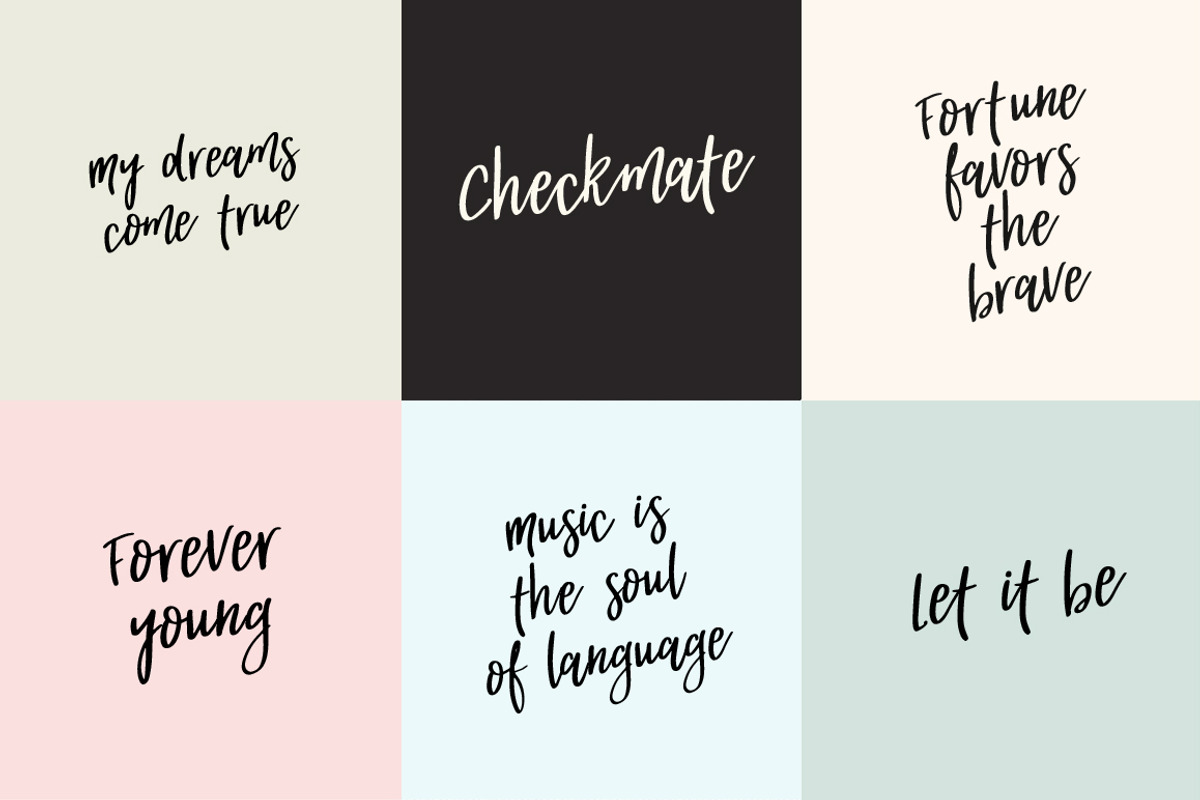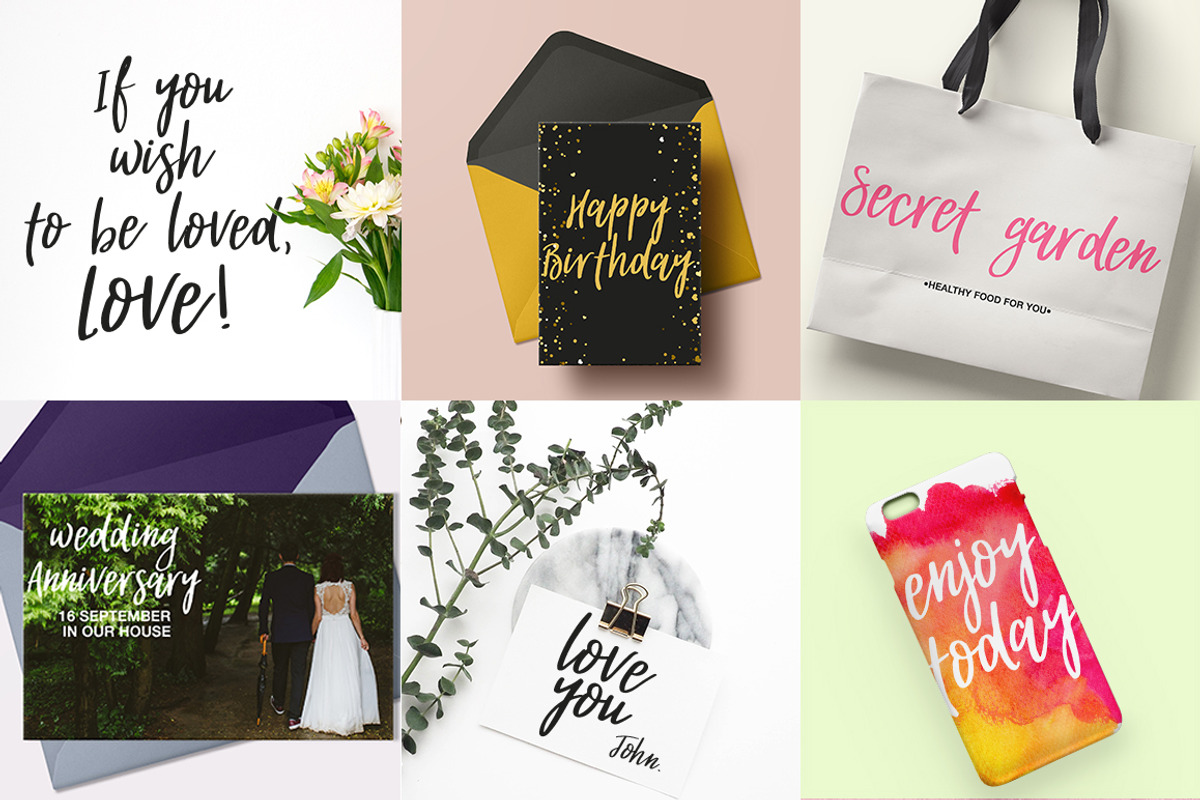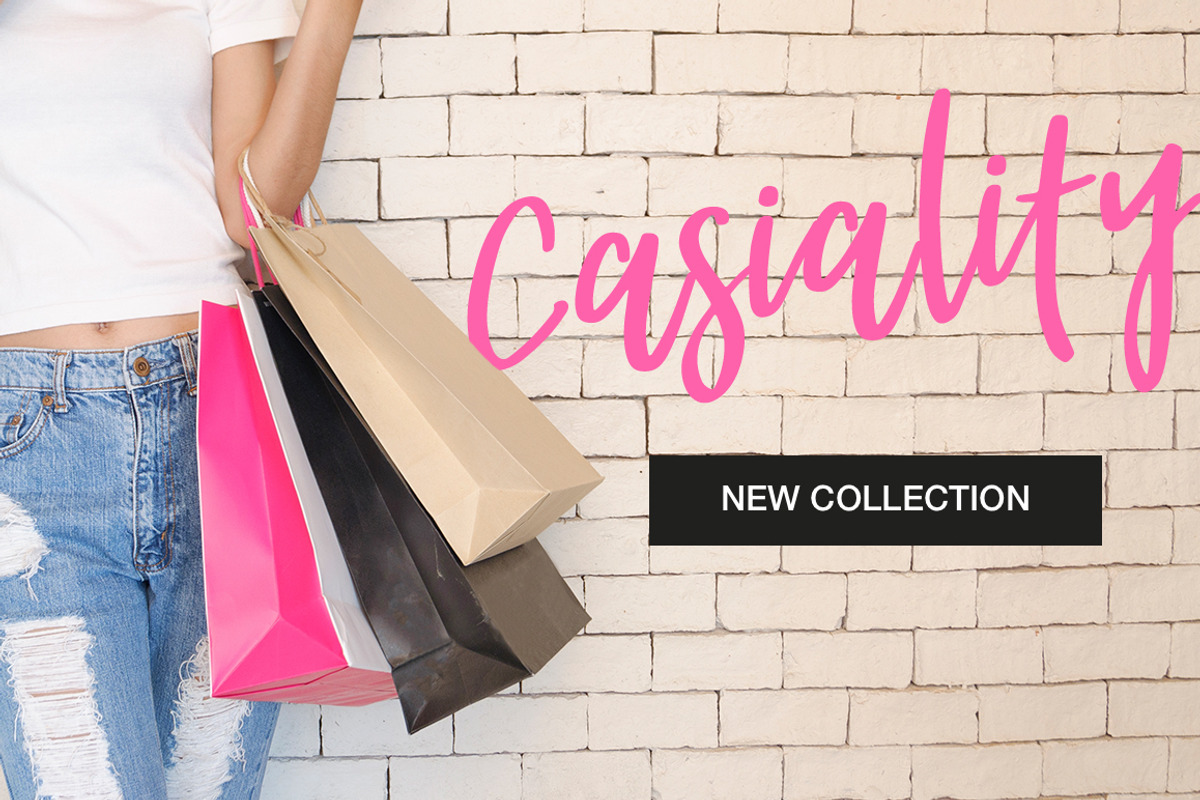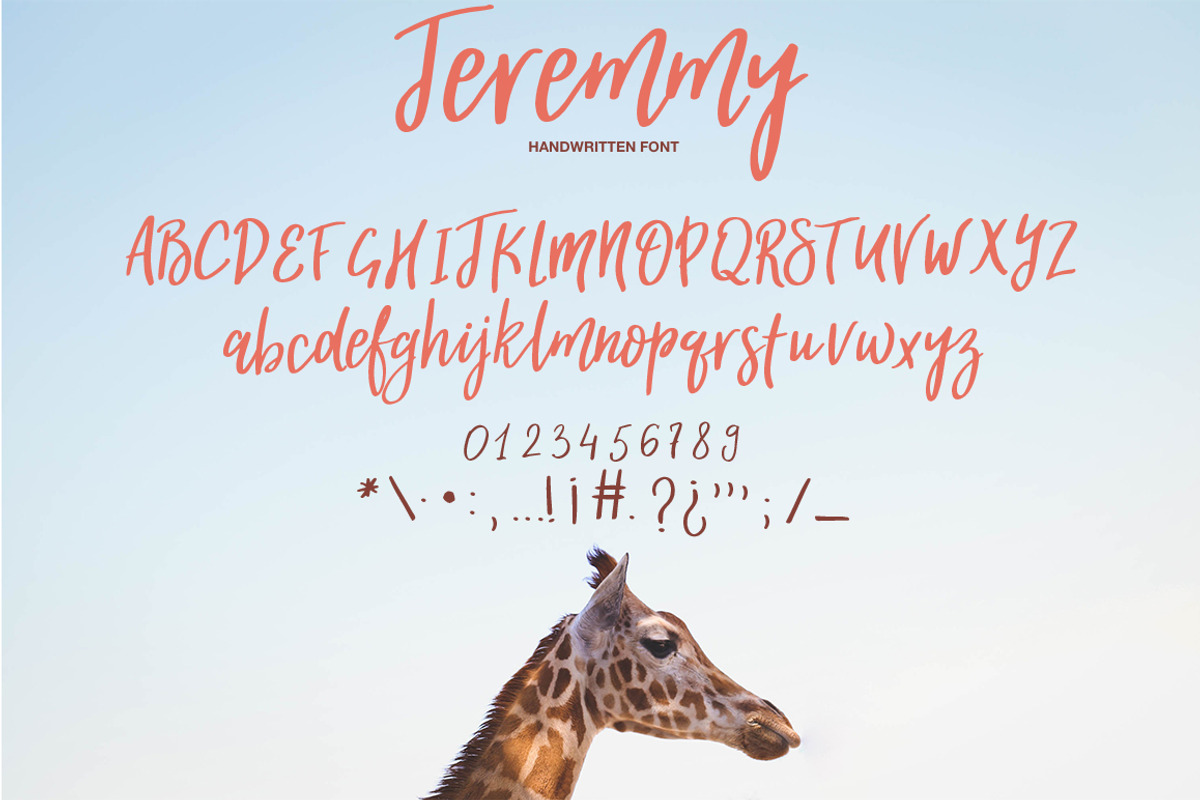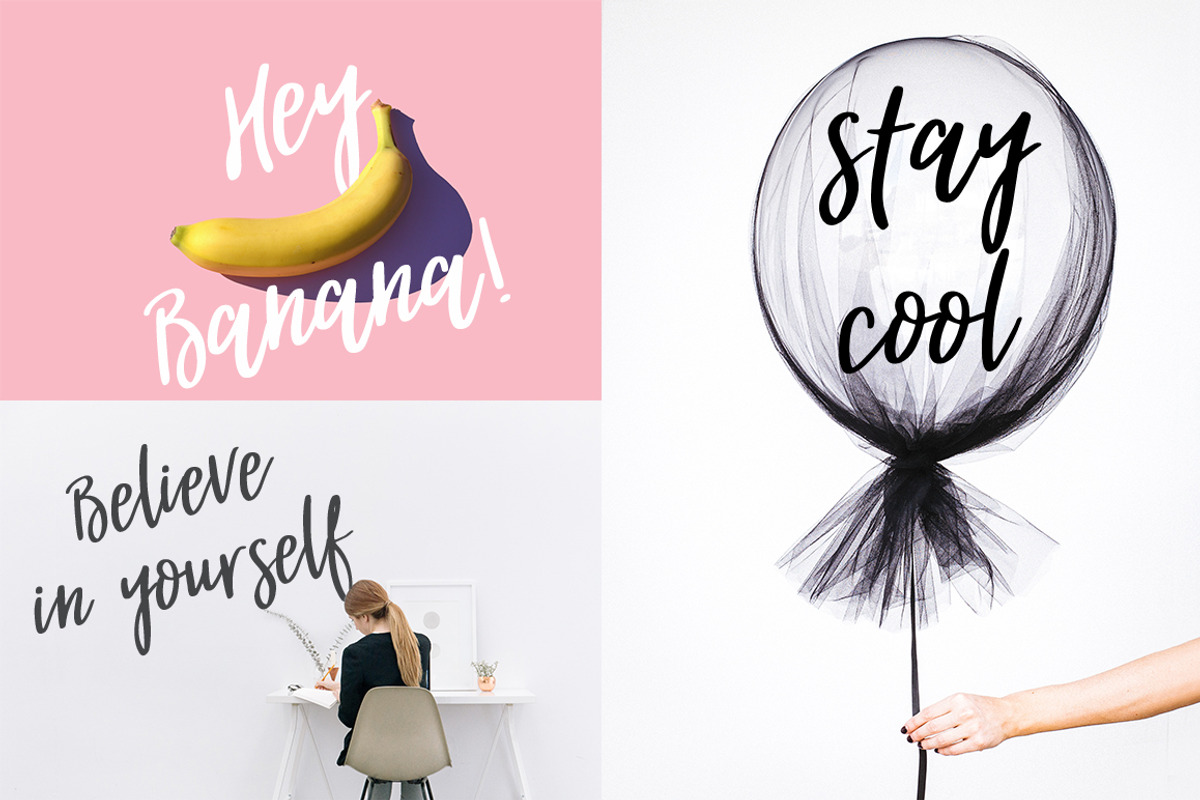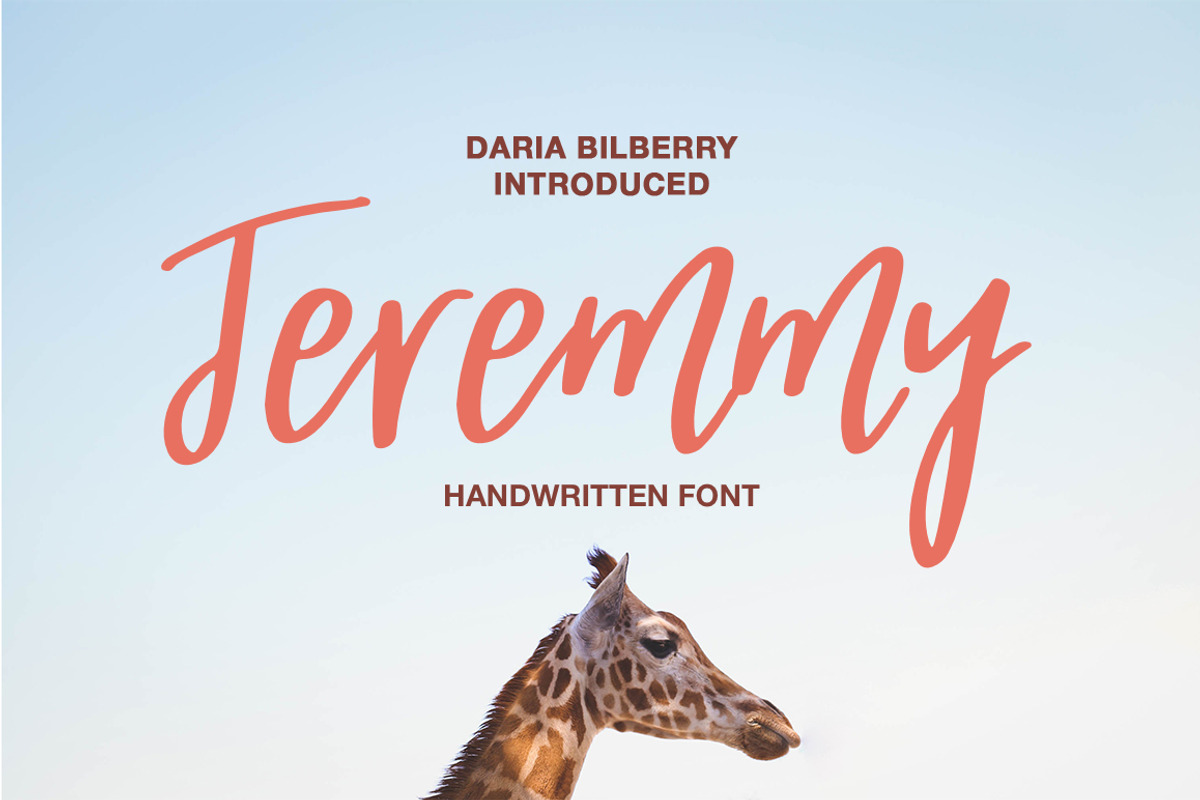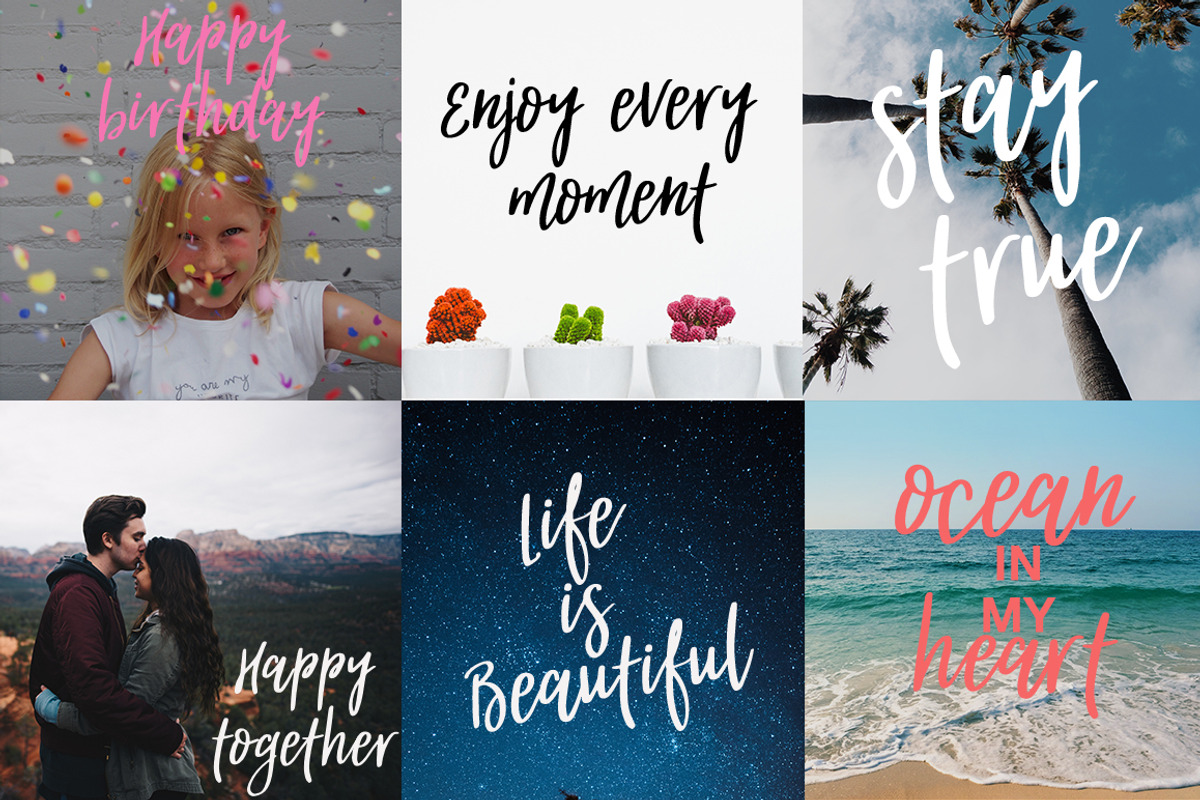
Jeremmy handwritten font
Meet new Handwritten font Jeremmy!
Jeremmy - a new handwritten font. Very suitable for greeting cards, branding materials, business cards, quotes, posters, and more!
Why Jeremmy handwritten font is worth a look
Jeremmy handwritten font by BilberryCreates fits naturally into Branding, posters, packaging, typography.